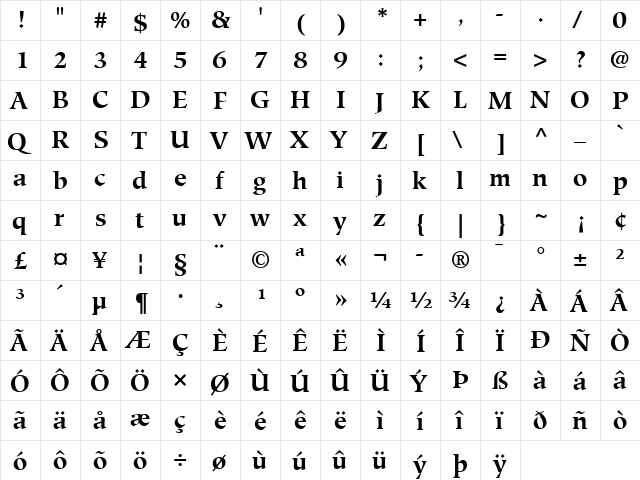
Hiroshige LT Book Bold
Design Context for Hiroshige LT Book Typeface
Hiroshige LT Book is a composed and adaptable typeface that performs quietly and consistently across a wide range of design contexts. The heavy weight commands attention and anchors typographic hierarchies.